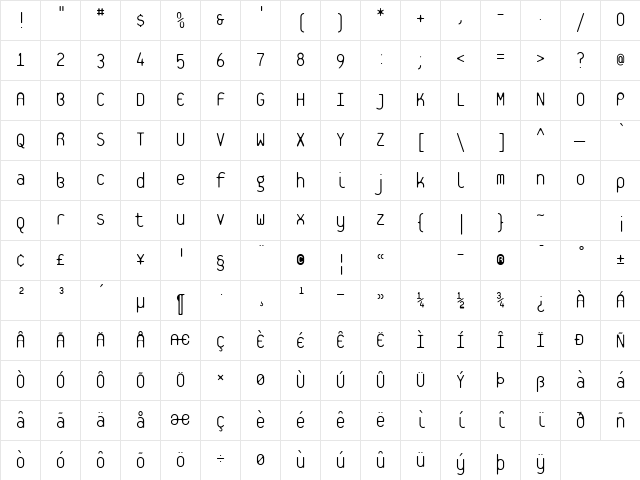
Boks Thin
Style: Thin
Design Context for Boks
Boks is a composed and adaptable typeface that performs quietly and consistently across a wide range of design contexts. Its slender proportions lend an understated elegance to any composition.